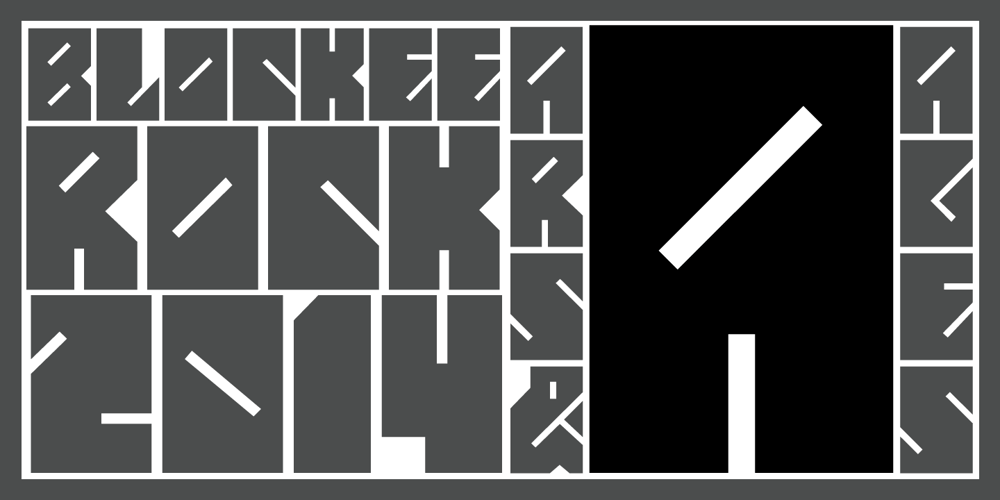
Takox Font Family was designed by John Moore and published by John Moore Type Foundry. Takox contains 2 styles and family package options. Takox is a display typeface based on a synthesis of righteousness extreme, futuristic spirit leads us to a way of plotting the words in a new way and in line with trends and technology synthesis century. Extreme music. Takox is provided with style forms to small caps, in both Regular and Italic. What was the inspiration for designing the font? Takox is the result of my own research in finding straight shapes of great simplicity. What are its main characteristics and features? Display font witn straight shapes of great simplicity. Usage recommendations: This letter design is ideal for use 3D extrusions, ideal to represent natural forms of cristals, metal or mechanical things. Fits indiustriales representations and aerospace, also for extreme music and avant garde.